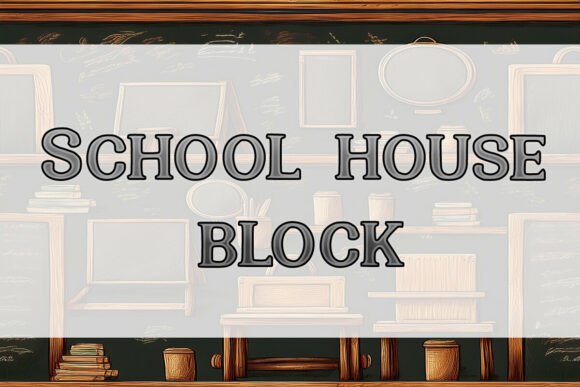
Introduction to School House Block Font
Do you remember the thrill of rummaging through your parents’ old trunk, uncovering vintage school supplies and dusty textbooks? For many of us, the nostalgic charm of classic school days is a treasure trove of creative inspiration. As designers, we often find ourselves drawn to fonts that evoke a sense of tradition, authority, and warmth – and that’s where the School House Block Font comes in.
With its robust slab-serif typeface, School House Block Font is a design resource that perfectly captures the essence of vintage chalkboards and traditional textbooks. Whether you’re working on a creative project that requires a touch of classic structure, or simply looking for a high-quality font to elevate your design, this font is an absolute must-have. And the best part? It’s available for free download, making it a valuable addition to any designer’s toolkit.
Key Features of School House Block Font
- High-quality design resource ideal for creative projects, offering a unique and playful touch.
- Features a large character set, making it suitable for a variety of creative projects, from logos and branding to signage and wayfinding.
- Designed with a bold and block-like aesthetic, perfect for adding a touch of nostalgia and whimsy to any design project.
Honest Review: School House Block Font
I recently had the opportunity to work with the School House Block Font, and I must say it’s been a game-changer for my design projects. This font is a fantastic addition to any designer’s toolkit, and I’m excited to share my thoughts on it.
- High-quality design: The School House Block Font is meticulously crafted, with clean lines and a timeless feel that makes it perfect for a wide range of creative projects.
- Easy to read: The font is incredibly legible, even at smaller sizes, making it ideal for body text and titles.
- Not suitable for all projects: While the School House Block Font is versatile, it may not be the best choice for projects that require a more modern or experimental feel.
- Limited customization options: Some designers may find the font’s limited customization options restrictive.
Overall, I’m thoroughly impressed with the School House Block Font. It’s a high-quality design resource that’s perfect for a wide range of creative projects. If you’re looking for a reliable font that’s easy to use and looks great, I highly recommend giving it a try.
The School House Block Font is commonly used in educational and creative projects, such as invitations, posters, and social media graphics. It’s also a great choice for designers who want a high-quality and unique font for their projects.